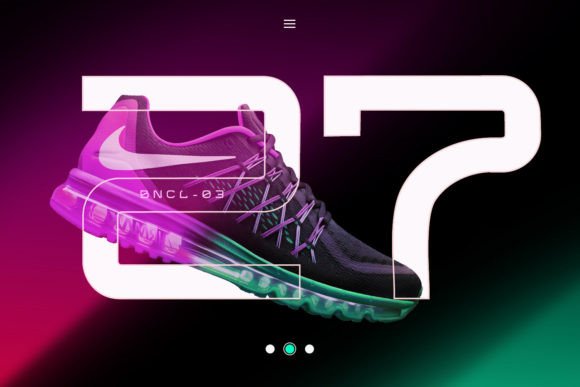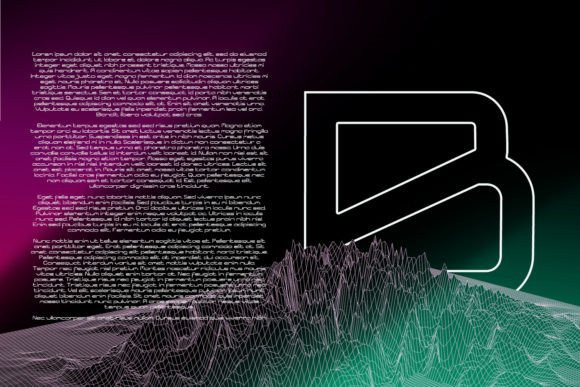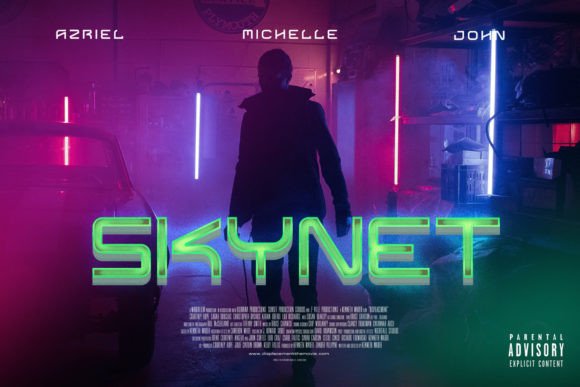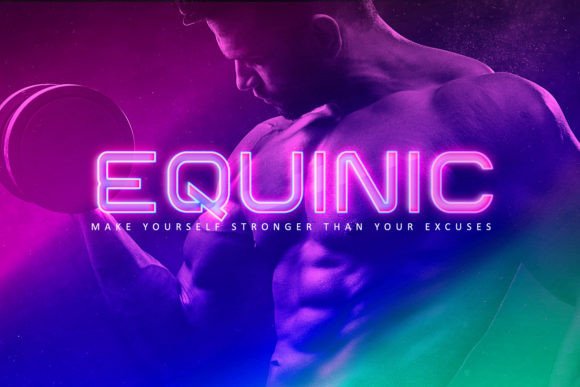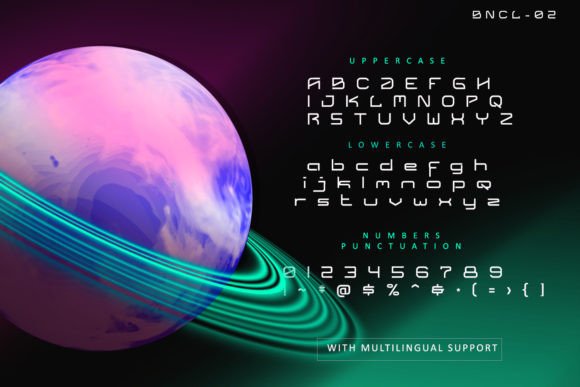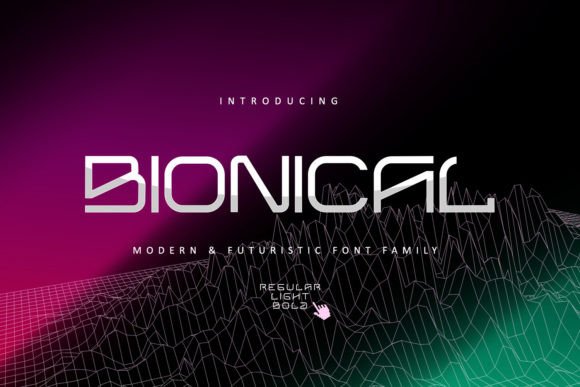
Bionical Font: A Futuristic Typeface for Modern Designers
In the realm of typography, fonts play a crucial role in shaping the visual identity of a design. For designers and crafters seeking a bold, futuristic look, the Bionical Font is an excellent choice. This wide, starkly futuristic font family is based on squares, a popular element in earlier techno fonts, and features super-elliptical stroke ends that give it a harmonized appearance.
The Design of Bionical Font
The Bionical Font is designed with a unique blend of geometric shapes and futuristic elements. Its square-based design provides a solid foundation, while the super-elliptical stroke ends add a touch of sophistication. This combination results in a font that exudes a sense of modernity and innovation. The clean lines and minimalist approach make it perfect for a wide range of applications, from logos and labels to posters, packaging, and more.
Key Features of Bionical Font
- Wide and Futuristic: The Bionical Font boasts a wide, expansive design that commands attention.
- Square-Based: The font’s design is rooted in squares, a classic element in techno fonts.
- Super-Elliptical Stroke Ends: The stroke ends are carefully crafted to provide a harmonized appearance.
- Versatile: Suitable for various applications, including logos, labels, posters, packaging, books, movies, presentations, games, and more.
Uses of Bionical Font
The Bionical Font’s versatility makes it an excellent choice for various design projects. Here are some of the many ways you can utilize this font:
- Logos and Branding: Create a lasting impression with a bold, futuristic logo that sets your brand apart.
- Posters and Flyers: Grab attention with eye-catching posters and flyers that showcase your message in a modern, sleek design.
- Packaging: Elevate your product’s packaging with a font that exudes innovation and sophistication.
- Movies and Presentations: Add a touch of futurism to your movie titles, presentations, and slideshows.
- Games: Create a immersive gaming experience with a font that embodies the spirit of technology and innovation.
Why Choose Bionical Font?
With so many fonts available, why choose Bionical Font? Here are a few compelling reasons:
- Unique Design: The Bionical Font’s distinctive design sets it apart from other fonts, ensuring your design stands out.
- Legibility: The font’s clean lines and carefully crafted stroke ends ensure excellent legibility, even at smaller sizes.
- Flexibility: Suitable for a wide range of applications, from digital to print, and from simple to complex designs.
Tips for Using Bionical Font
To get the most out of the Bionical Font, consider the following tips:
- Experiment with Sizes: The Bionical Font’s wide design makes it perfect for large-scale applications, but it also works well at smaller sizes.
- Play with Colors: The font’s futuristic design lends itself well to bold, vibrant colors that can add an extra layer of depth to your design.
- Combine with Other Fonts: The Bionical Font pairs well with other fonts, allowing you to create a unique visual hierarchy in your design.
| Author | Andrie Nugrie |
The Bionical Font is a powerful tool for designers and crafters seeking a bold, futuristic look. Its unique design, versatility, and legibility make it an excellent choice for a wide range of applications. Whether you’re working on a logo, poster, or packaging, the Bionical Font is sure to elevate your design to the next level. So why wait? Explore the possibilities of the Bionical Font and discover a new world of creative possibilities.